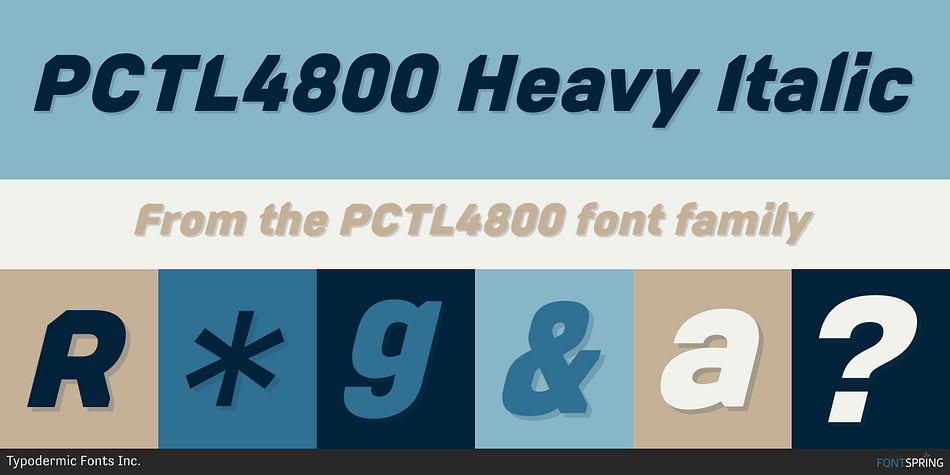
PCTL4800 Heavy Italic
Designed by Ray Larabie, PCTL4800 is a sans serif font family. This typeface has twelve styles and was published by Typodermic Fonts Inc.
Introducing PCTL4800, a technical sans-serif typeface that’s a must-have in every designer’s toolkit. This typeface is the perfect choice for those who want to achieve a modern or futuristic aesthetic without the vintage baggage or technological gimmickry. With its somber and principled design, PCTL4800 is the perfect choice for conveying a sense of technical sophistication.
What sets PCTL4800 apart is its unique corner index notch, a design feature that hints at an unknown technical necessity, such as an orientation prompt like the notch on an SD card. This feature adds a touch of mystery and intrigue to your designs, making them stand out from the crowd.
And if you prefer a more conservative design, PCTL9600 is the typeface for you. It has all the same great features as PCTL4800, but without the corner index notch.